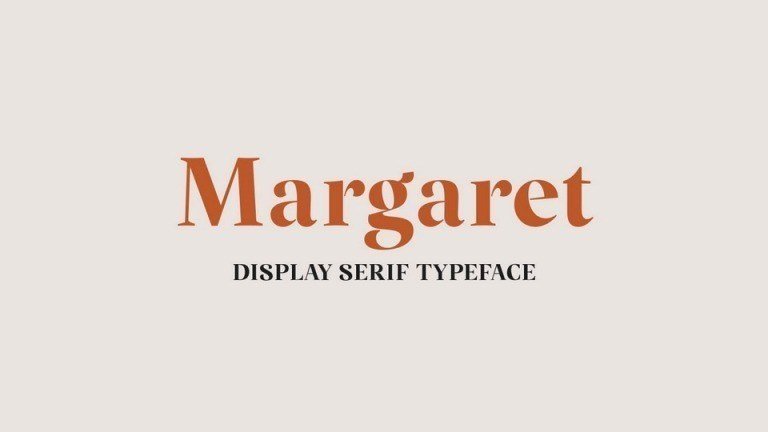
Margaret Display Serif Typeface
Margaret Font is a modern and clean serif font. Due the high contrast and warm curves paired with sharp bracketed serifs it works perfect for display purpose. The design of typeface will make your design more beautiful and inspiring.
This font will suitable for any project, like branding, print template, logo and etc. This font is free for PERSONAL AND COMMERCIAL USE.